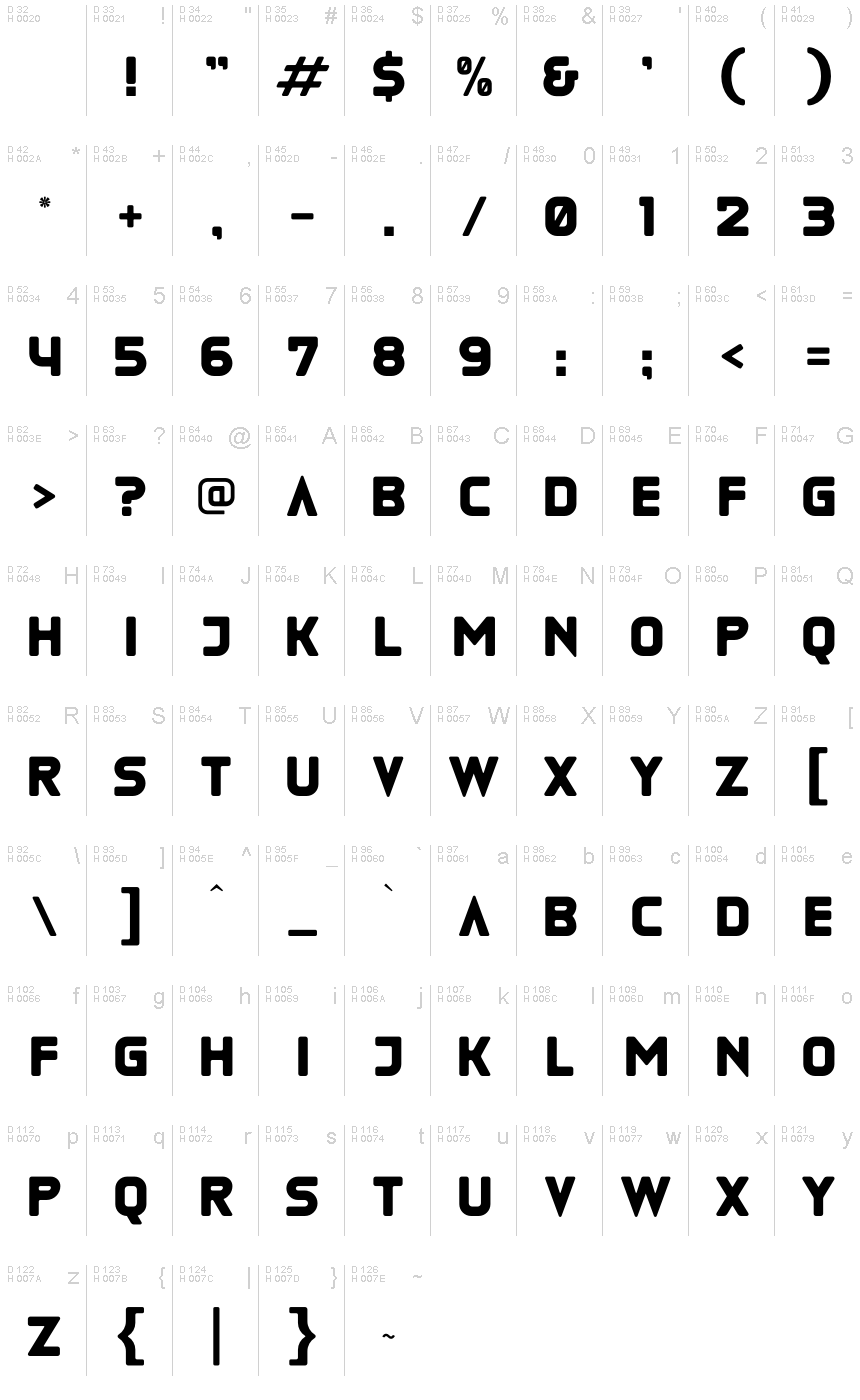
Brock Restar
Brock Restar, a bold and striking sans-serif font designed by Storytype Studio, commands attention with its unwavering presence. This typeface exudes a distinct sense of strength and confidence, its clean lines and geometric forms radiating a striking sense of authority. The font's robust weight and unapologetic character lend themselves to impactful headlines, attention-grabbing branding, and powerful typographic compositions.
Brock Restar's versatility shines across a multitude of design applications, from bold editorial layouts to dynamic logo designs. Its bold personality seamlessly integrates into modern, minimalist aesthetics, while also complementing more industrial or utilitarian design styles. Whether used for eye-catching signage, captivating packaging, or dynamic digital interfaces, Brock Restar's unique character and commanding presence will undoubtedly elevate any project it graces.